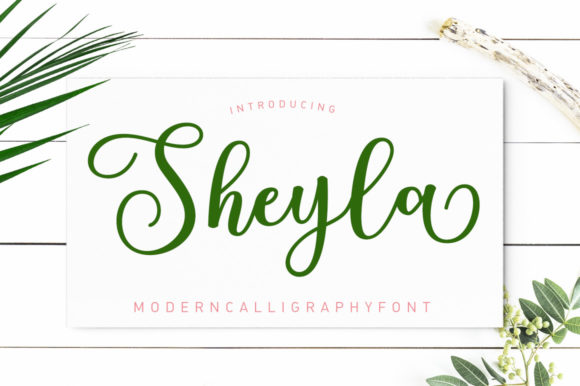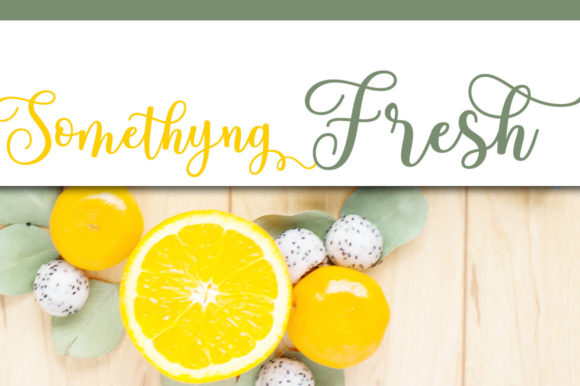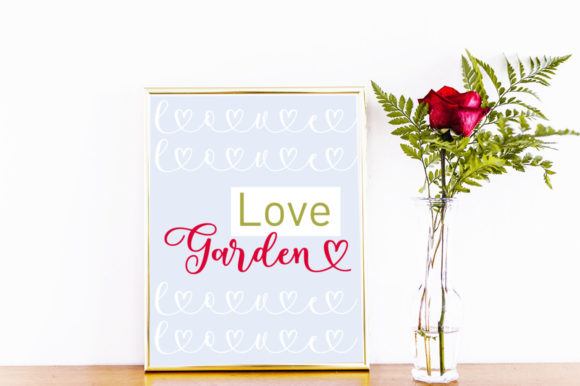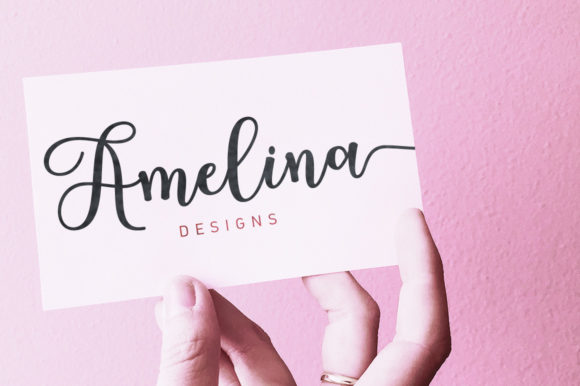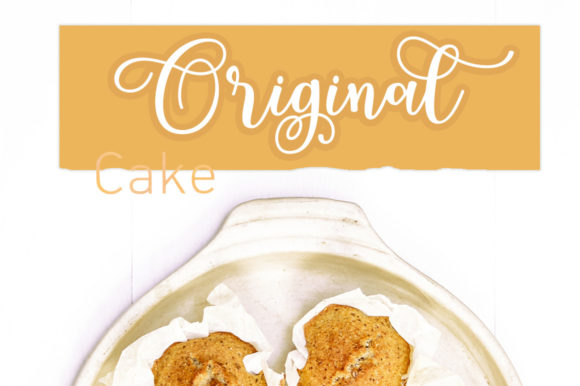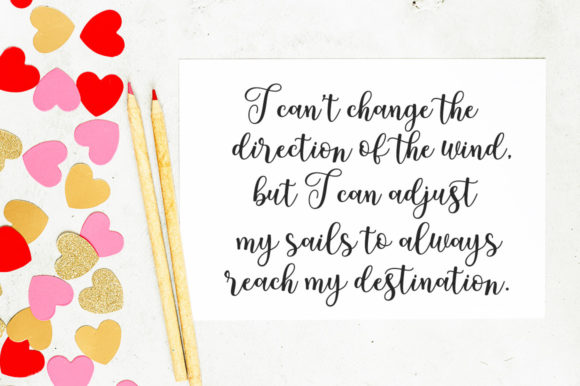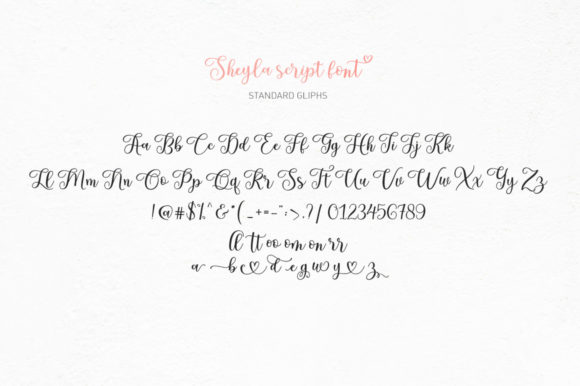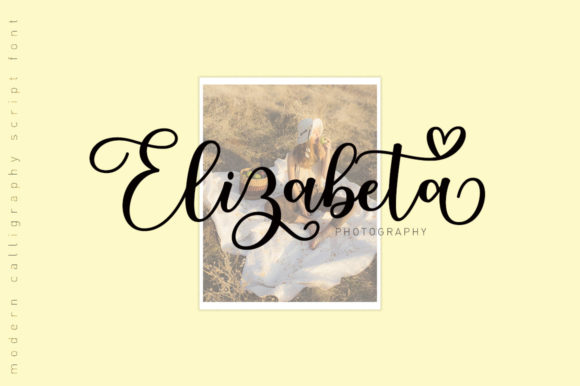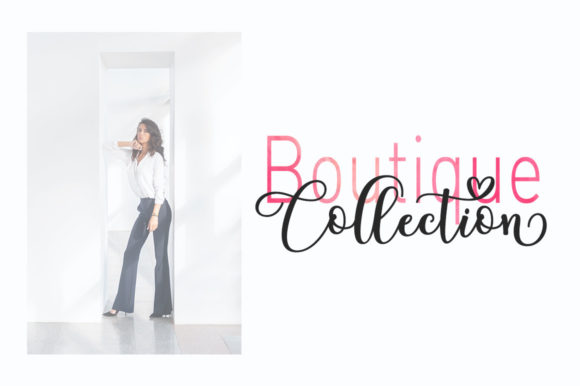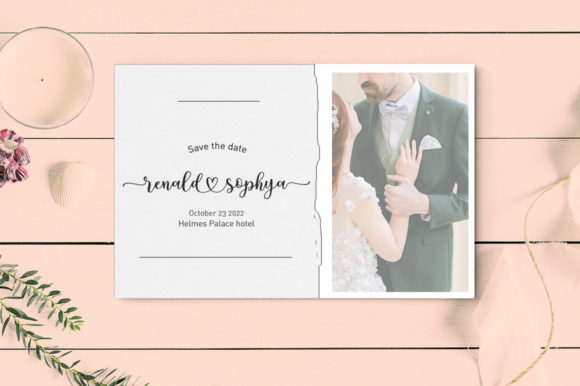
Sheyla Script Font
About Sheyla Script Font
Sheyla Script is a lovely script font featuring charming, playful characters that seem to dance along the baseline. This font is PUA encoded which means you can access all glyphs and swashes with ease!